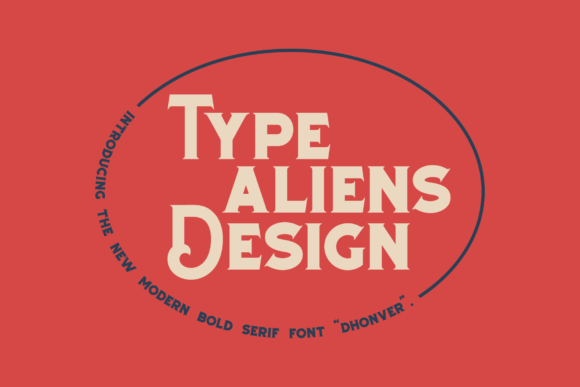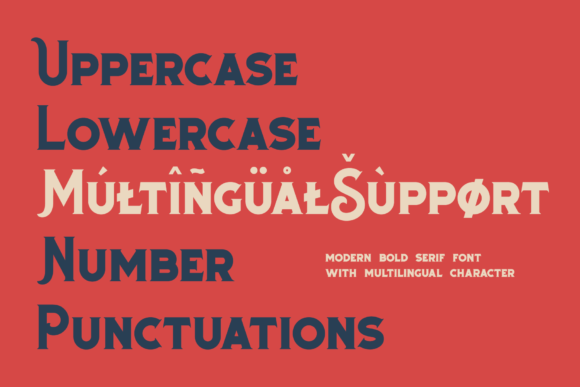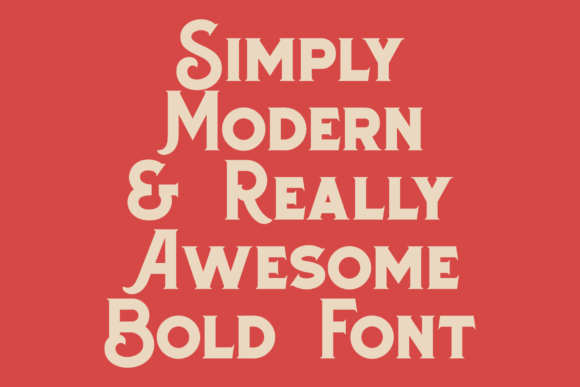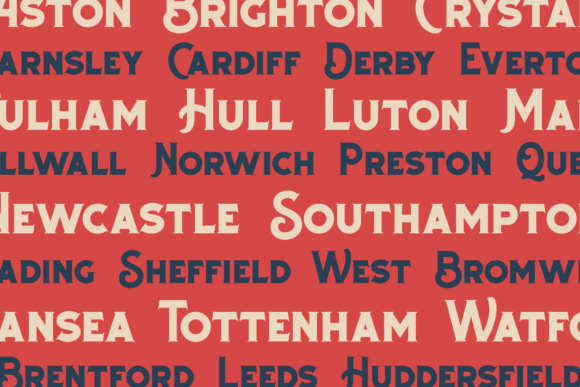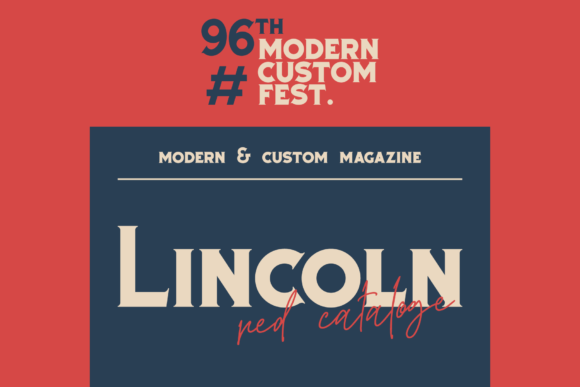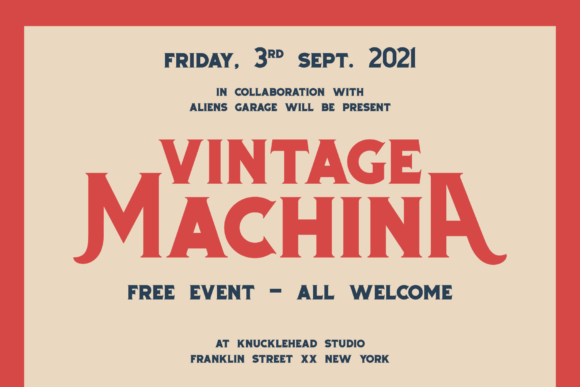
Dhonver Font: The Ultimate Bold Serif Font for Designers and Crafters
In the world of typography, fonts play a crucial role in bringing designs to life. Among the numerous fonts available, Dhonver font stands out for its unique characteristics and versatility. In this article, we’ll explore the features, benefits, and uses of Dhonver font, making it a must-read for designers and crafters.
What is Dhonver Font?
Dhonver is a thick lettered and bold serif font that has gained popularity among designers and crafters. Its distinct feature is the perfect balance of trendiness and classic serif style, making it an excellent choice for various design projects. The font’s bold and sturdy appearance gives it a commanding presence, making it ideal for headlines, titles, and emphasis text.
Key Features of Dhonver Font
- Bold and Thick Lettering: Dhonver font features thick and bold lettering, making it perfect for creating eye-catching designs.
- Serif Style: The font’s serif style adds a touch of classic elegance to designs, making it suitable for projects that require a traditional look.
- Trendiness: Dhonver font has a modern and trendy feel to it, making it perfect for designs that require a contemporary look.
- Versatility: The font’s versatility makes it suitable for various design projects, from digital designs to print materials.
Benefits of Using Dhonver Font
Using Dhonver font in your designs offers several benefits, including:
- Attention-Grabbing: The font’s bold and thick lettering grabs attention, making it perfect for headlines and titles.
- Easy to Read: Despite its bold style, Dhonver font is easy to read, making it suitable for body text and paragraphs.
- Customizable: The font’s versatility allows for easy customization, making it easy to adapt to your design style.
- Time-Saving: With Dhonver font, you can create professional-looking designs quickly, saving you time and effort.
Use Cases for Dhonver Font
Dhonver font is suitable for various design projects, including:
- Digital Designs: Use Dhonver font in digital designs, such as website headers, social media graphics, and email newsletters.
- Print Materials: The font is perfect for print materials, such as brochures, flyers, posters, and business cards.
- Branding and Identity: Dhonver font can be used to create a strong brand identity, making it perfect for logos, letterheads, and packaging designs.
- Crafting and DIY Projects: Crafters and DIY enthusiasts can use Dhonver font to add a personal touch to their projects, such as handmade cards, scrapbooking, and journaling.
Tips for Using Dhonver Font
To get the most out of Dhonver font, follow these tips:
- Use it Sparingly: Use Dhonver font sparingly to create emphasis and draw attention to specific parts of your design.
- Experiment with Colors: Experiment with different colors to find the perfect combination that matches your design style.
- Pair it with Other Fonts: Pair Dhonver font with other fonts to create a unique and visually appealing design.
- Adjust Font Size: Adjust the font size to create visual hierarchy and emphasize important information.
Dhonver font is a versatile and stylish bold serif font that can elevate your designs to the next level. Its unique features, benefits, and use cases make it a must-have font for designers and crafters. With its attention-grabbing style and ease of use, Dhonver font is perfect for various design projects, from digital designs to print materials. So, unleash your creativity and make your designs come to life with Dhonver font – the only limit is your imagination!